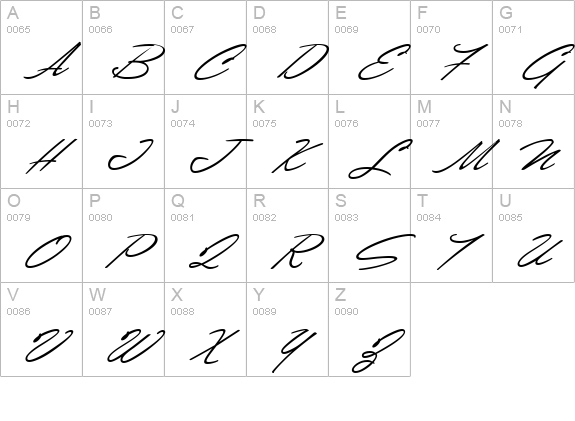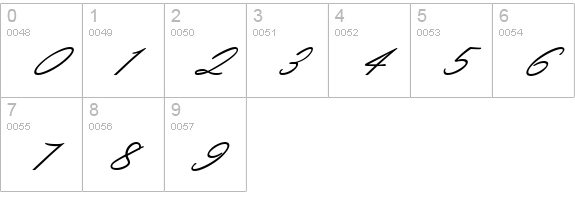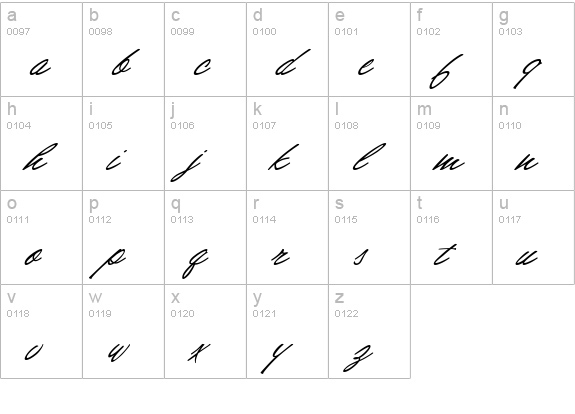
ShirleyScriptJF Font Details
Introducing ShirleyScriptJF font, a beautifully elegant and whimsical typeface that is sure to add a touch of charm to any project. This font effortlessly captures the essence of handwritten script, with its delicate strokes and graceful curves. ShirleyScriptJF is not only visually stunning but also incredibly versatile, making it suitable for a wide range of design applications. Whether you're designing wedding invitations, greeting cards, logos, or branding materials, this font will bring a sense of sophistication and uniqueness to your work. One of the most enticing aspects of ShirleyScriptJF is that it is completely free. That's right, this stunning font is freely available to download at FontsMarket.com. This means that you can enjoy all the beauty and elegance of ShirleyScriptJF without having to spend a dime. So why wait? Embrace the beauty of ShirleyScriptJF and elevate your designs to new heights. Download this font today from FontsMarket.com and let your creativity soar.